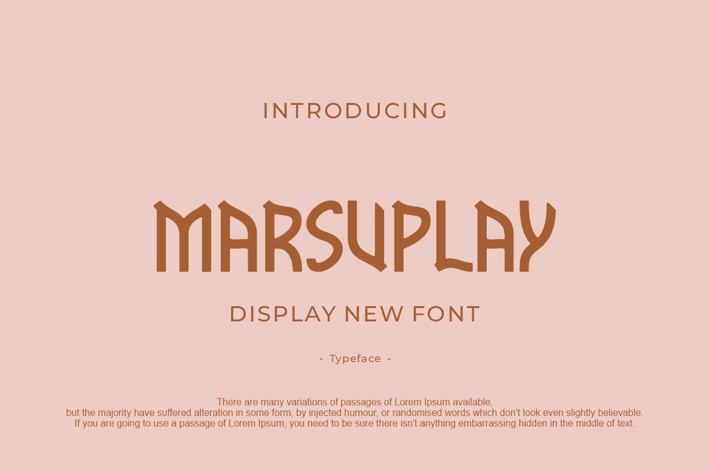
MARSUPLAY Font
Introducing our new product MARSUPLAY Font - Modern Font
MARSUPLAY Font - Modern Font is a bold and authentic display font. The font is suitable for any branding project like logo, t-shirt printing, esport, and many more. outstanding in a wide range of contexts.